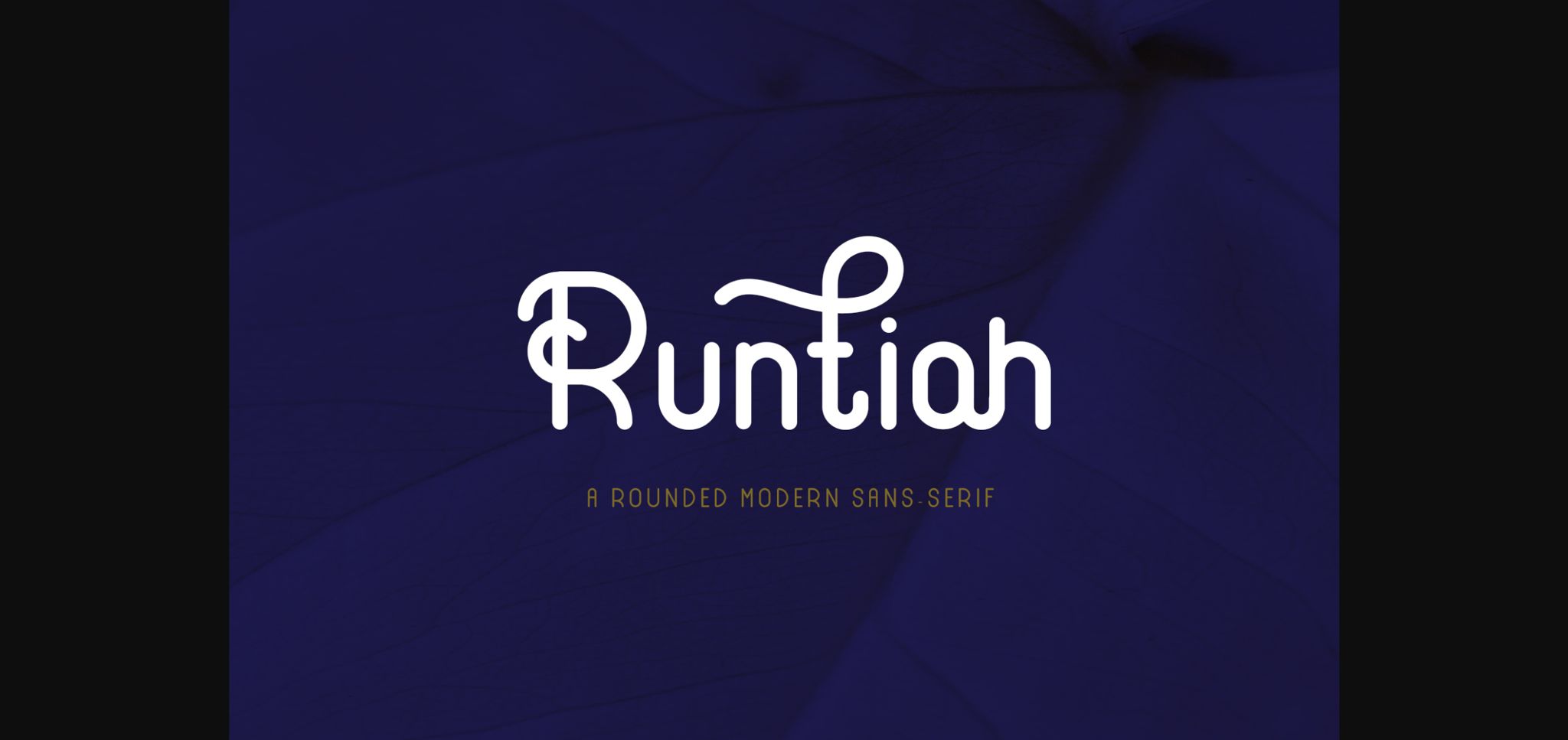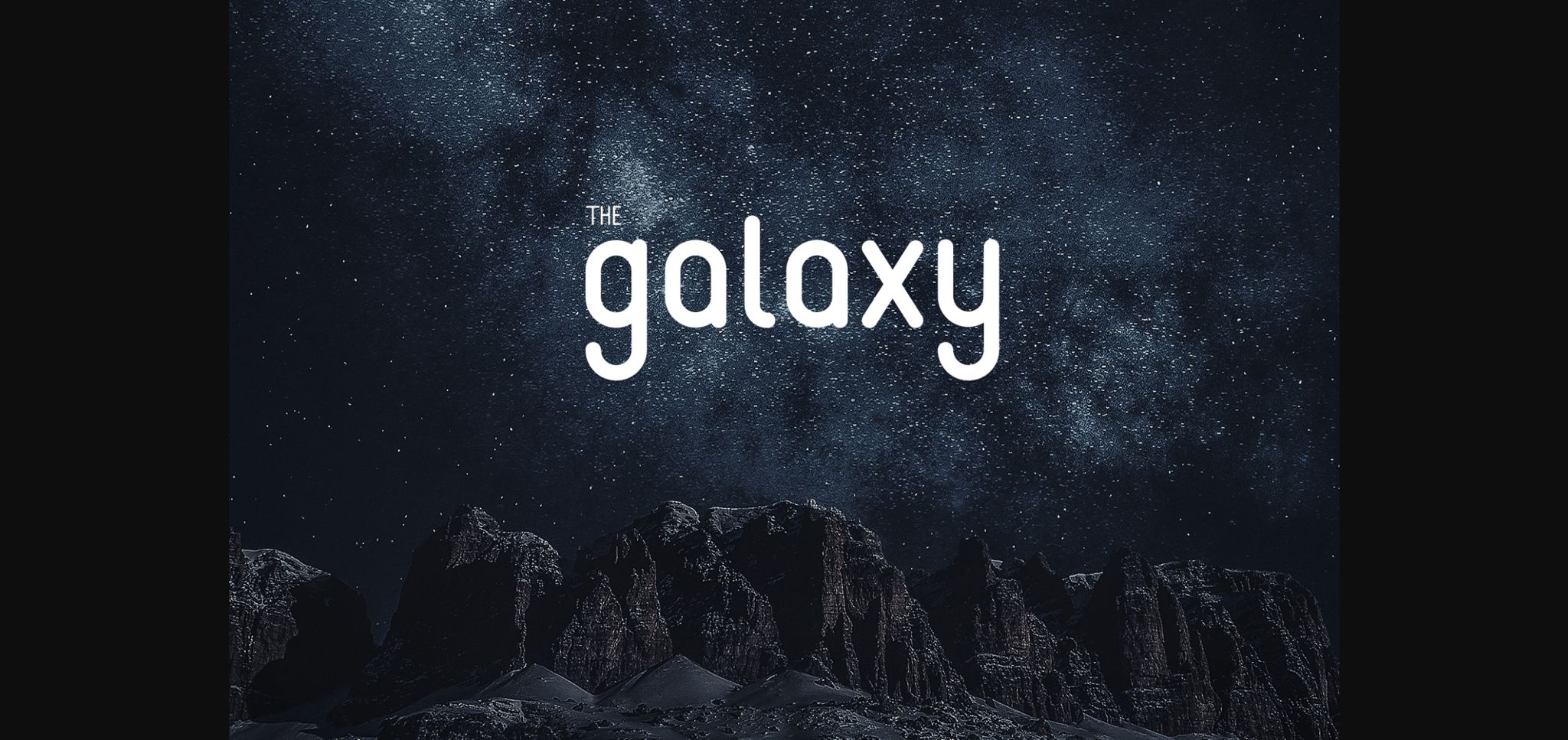
About Runtiah Font
Runtiah is a smooth and modern sans serif font. Suitable to a wide variety of designs due to its neat and simple style, Runtiah has the potential to become your favorite go-to font, no matter the occasion!